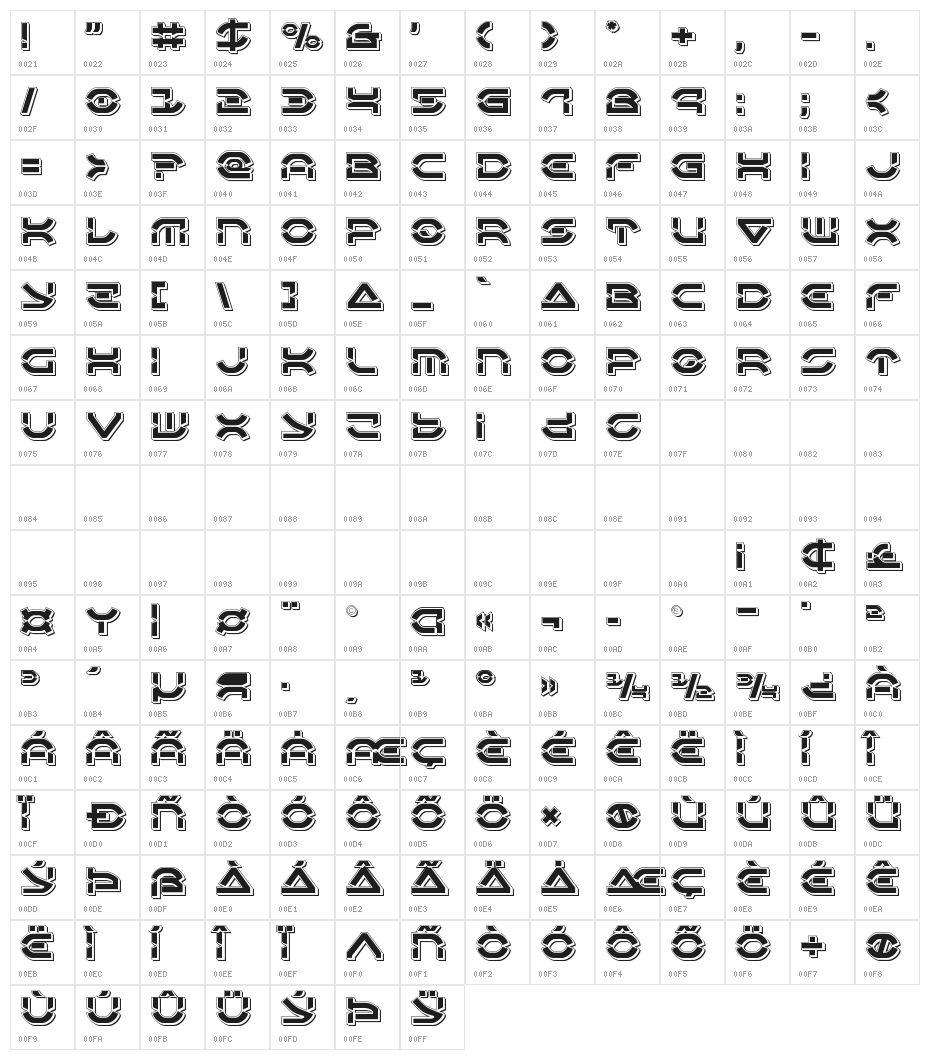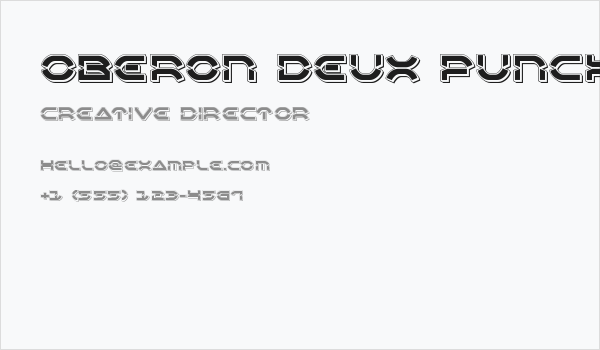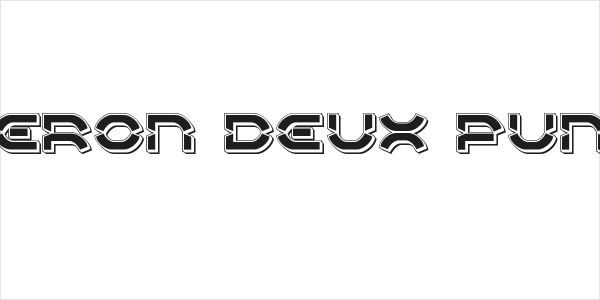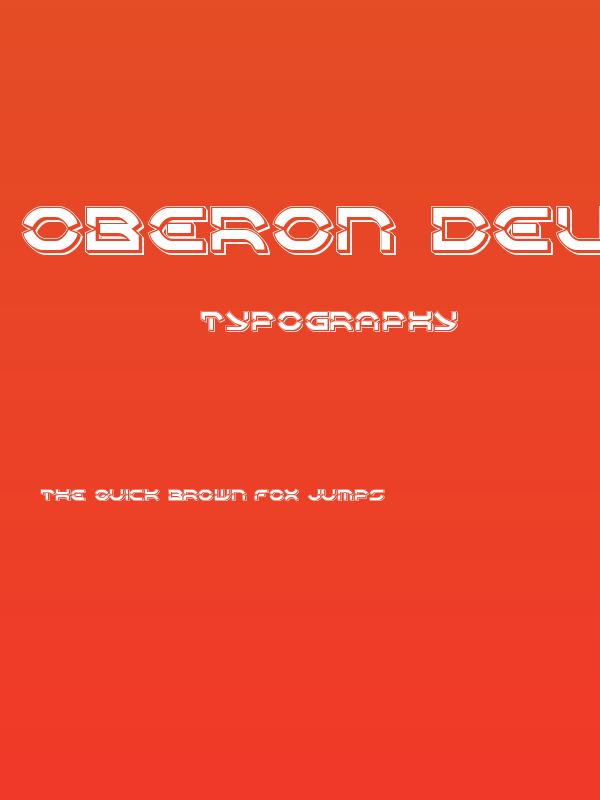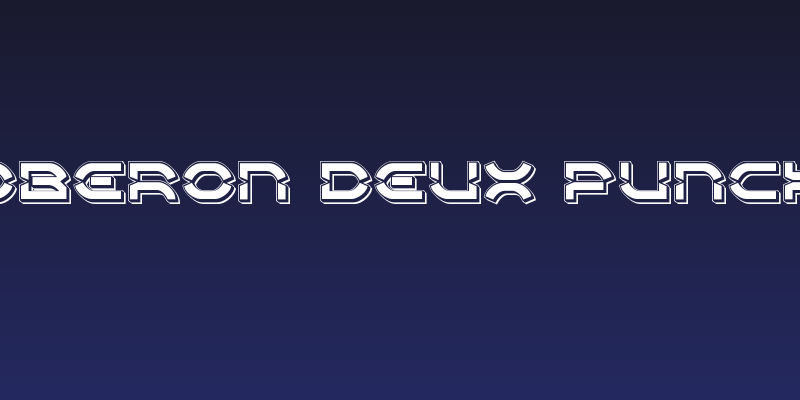
Oberon Deux Punch Font
Oberon Deux Punch Description
This font features a bold, futuristic design with a strong geometric influence. The characters are outlined with a thick, black border, giving them a striking and impactful appearance. The interior of each letter is filled with a solid color, creating a high contrast between the outline and the fill. The font's angular and sharp edges contribute to its modern and edgy style, making it suitable for attention-grabbing headlines or logos. The characters are evenly spaced, ensuring readability while maintaining a compact and cohesive look. Its unique style is ideal for projects that require a bold and modern aesthetic.
| Proposed Projects | Ideal for sci-fi themed designs, tech company logos, video game titles, and modern posters. |